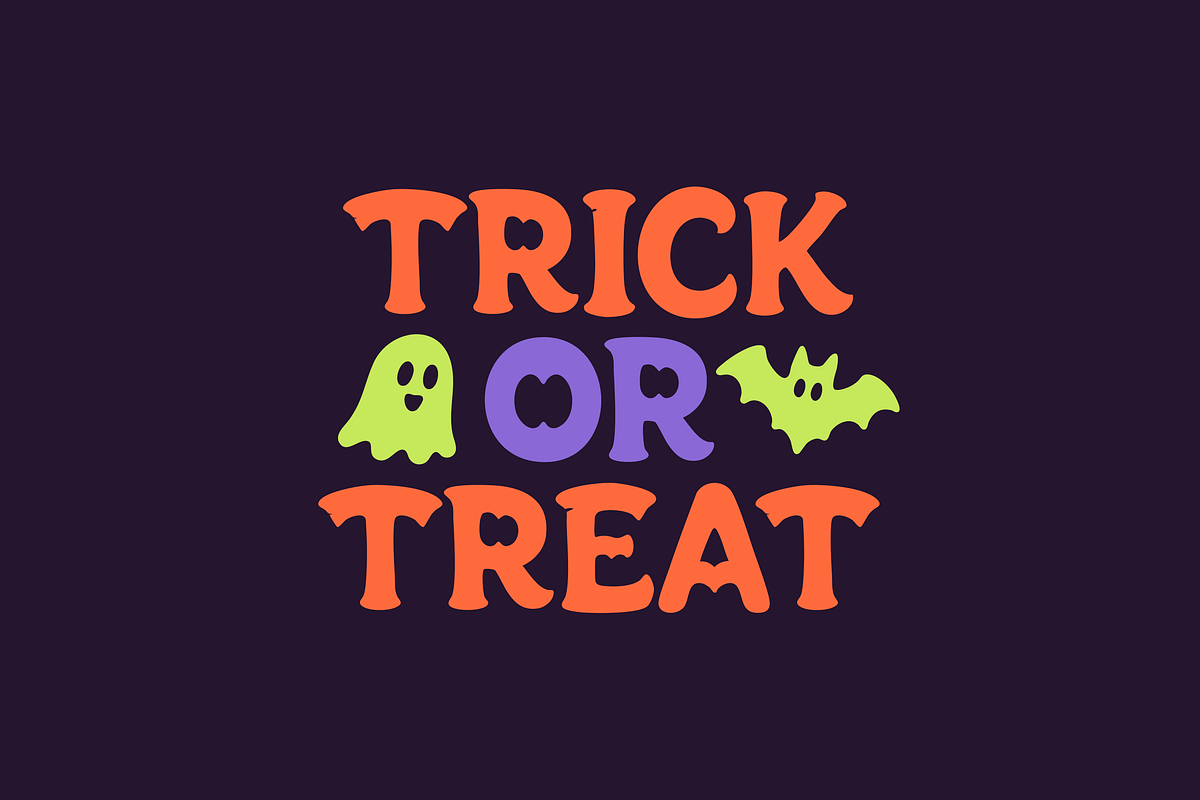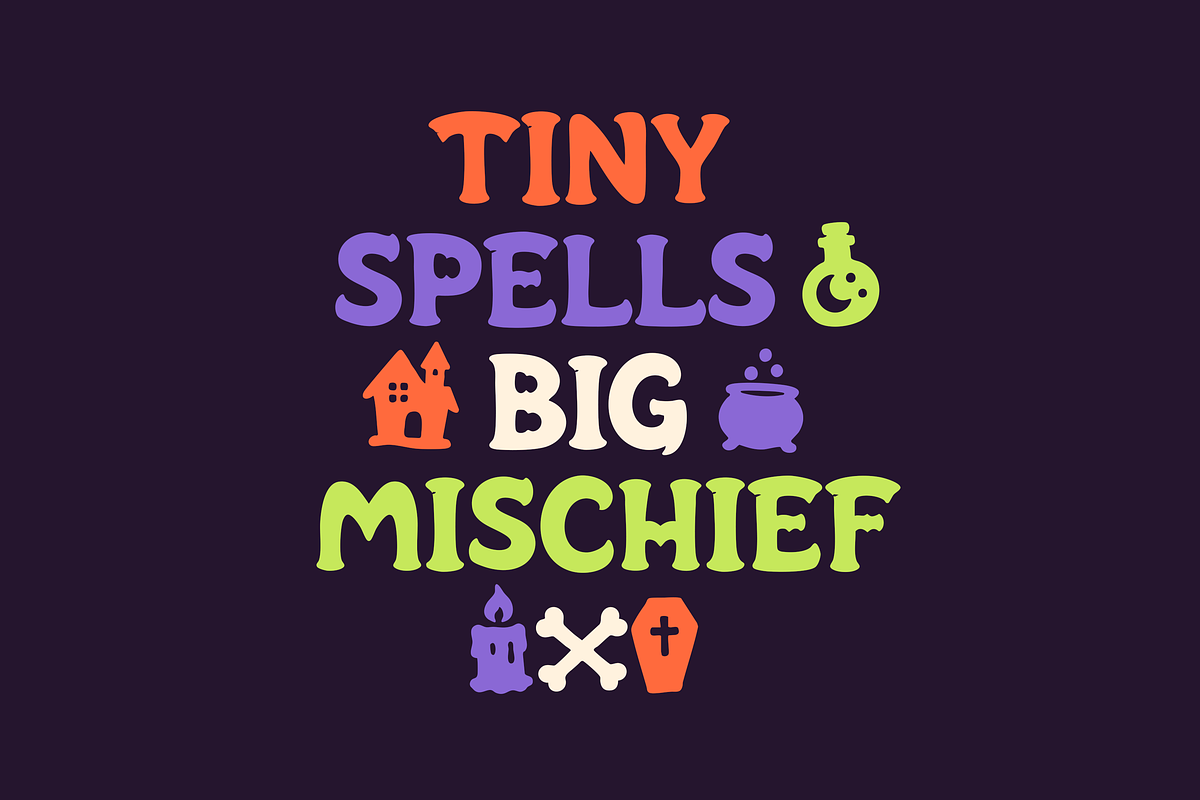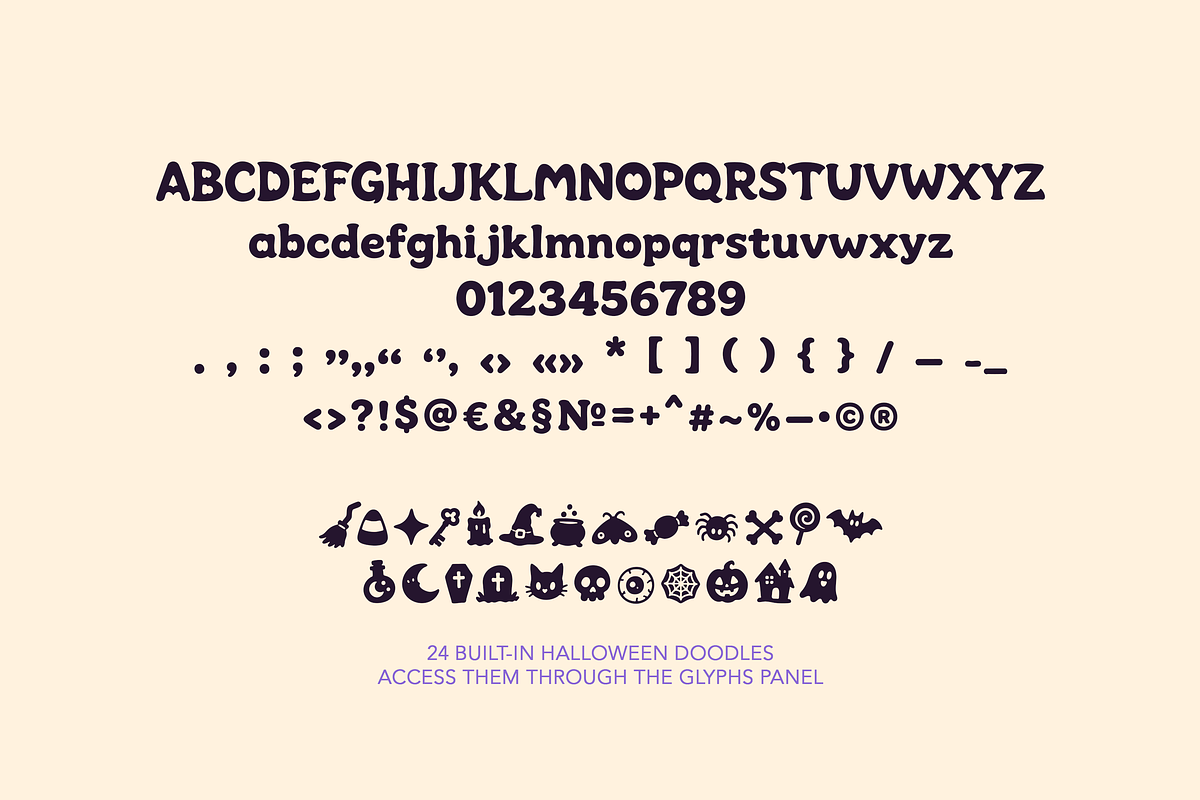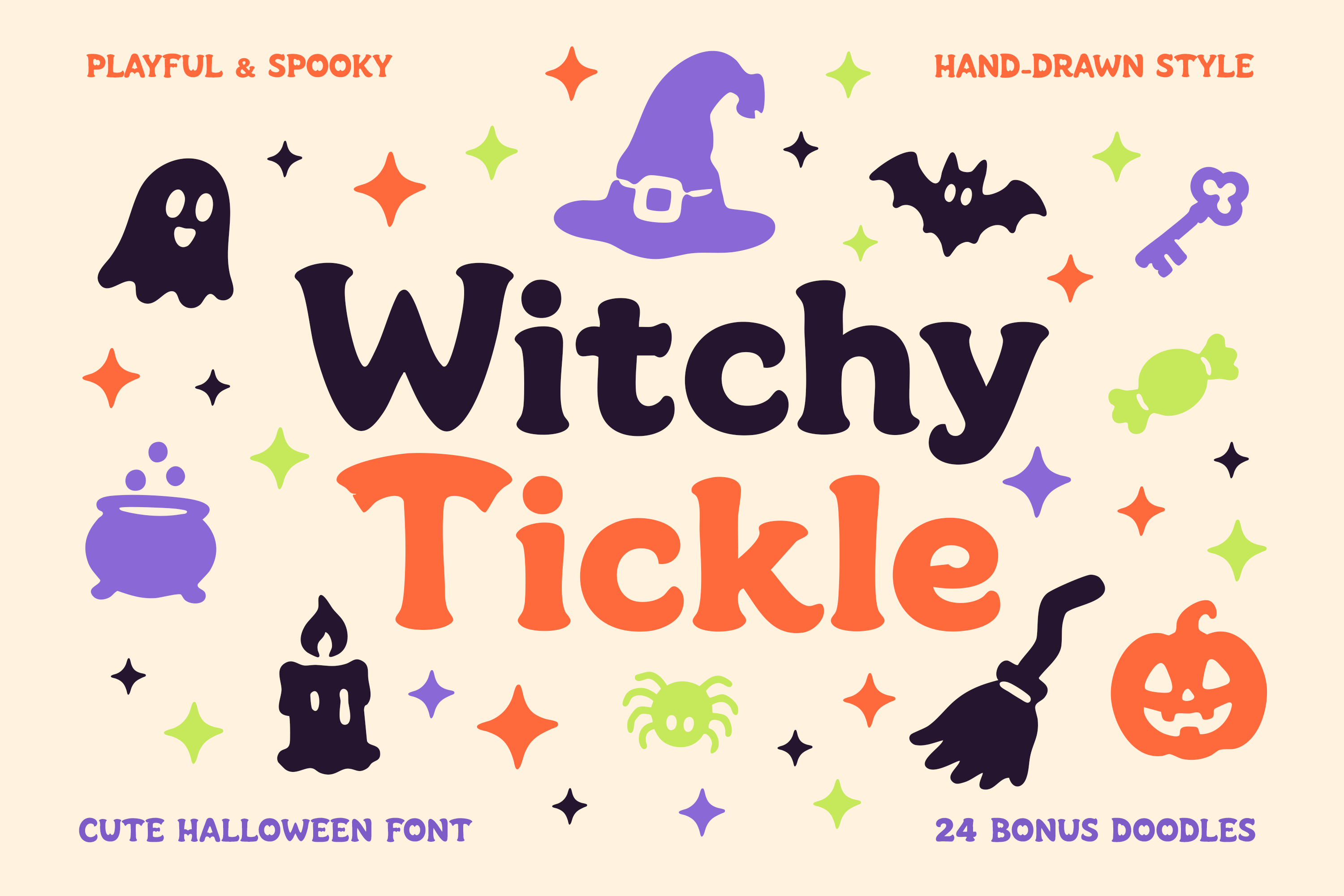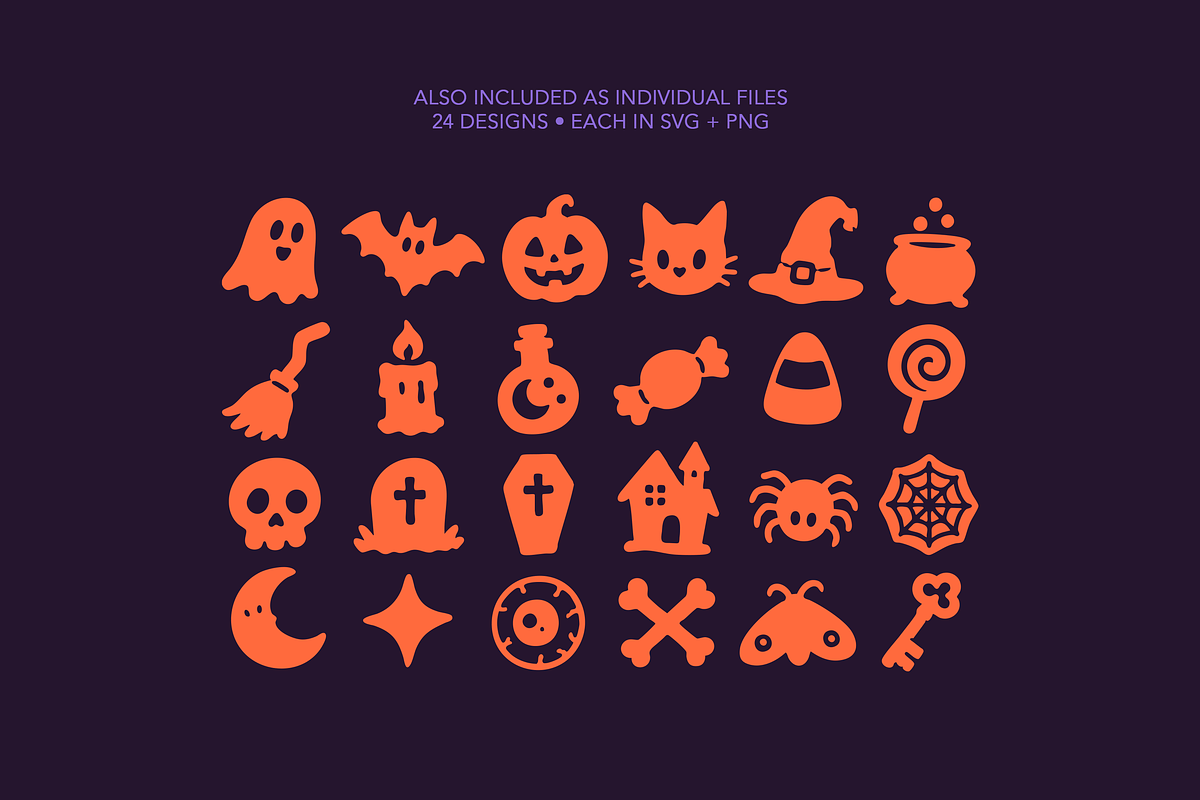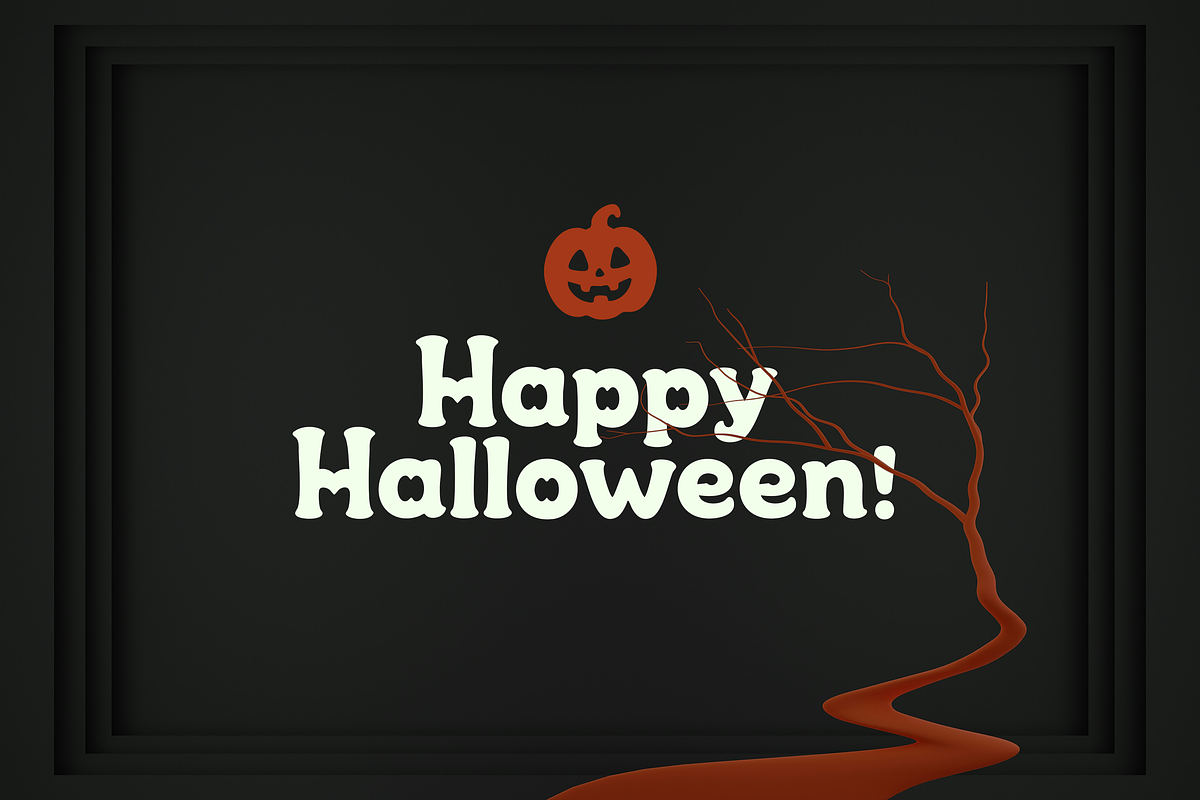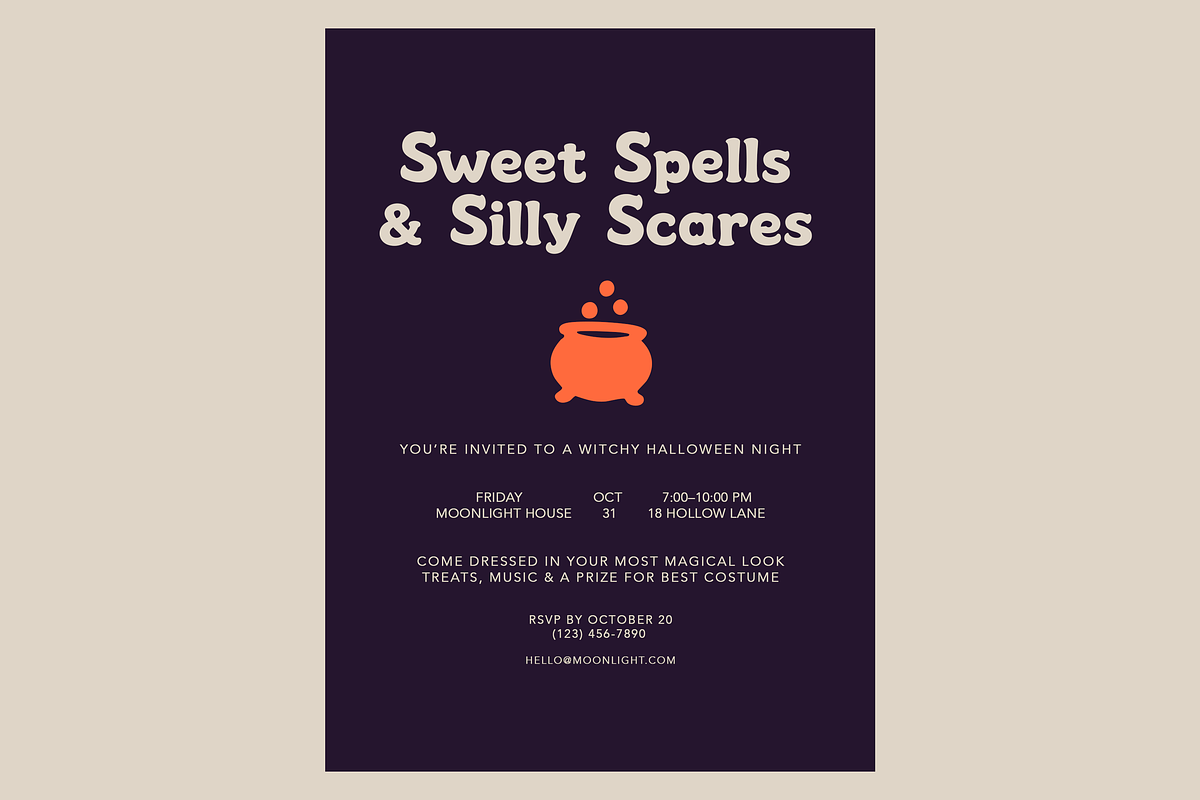
Witchy Tickle - Cute Halloween Font
Meet Witchy Tickle – a cute hand-drawn Halloween display font filled with playful curves, charming imperfections and just the right amount of spooky mischief.
This whimsical Halloween typeface includes uppercase and lowercase letters, numbers, punctuation and 24 matching Halloween doodles. The illustrations are built directly into the font and can be accessed through the Glyphs Panel in compatible design software.
Add a playful touch of Halloween magic to your next creative project with Witchy Tickle!